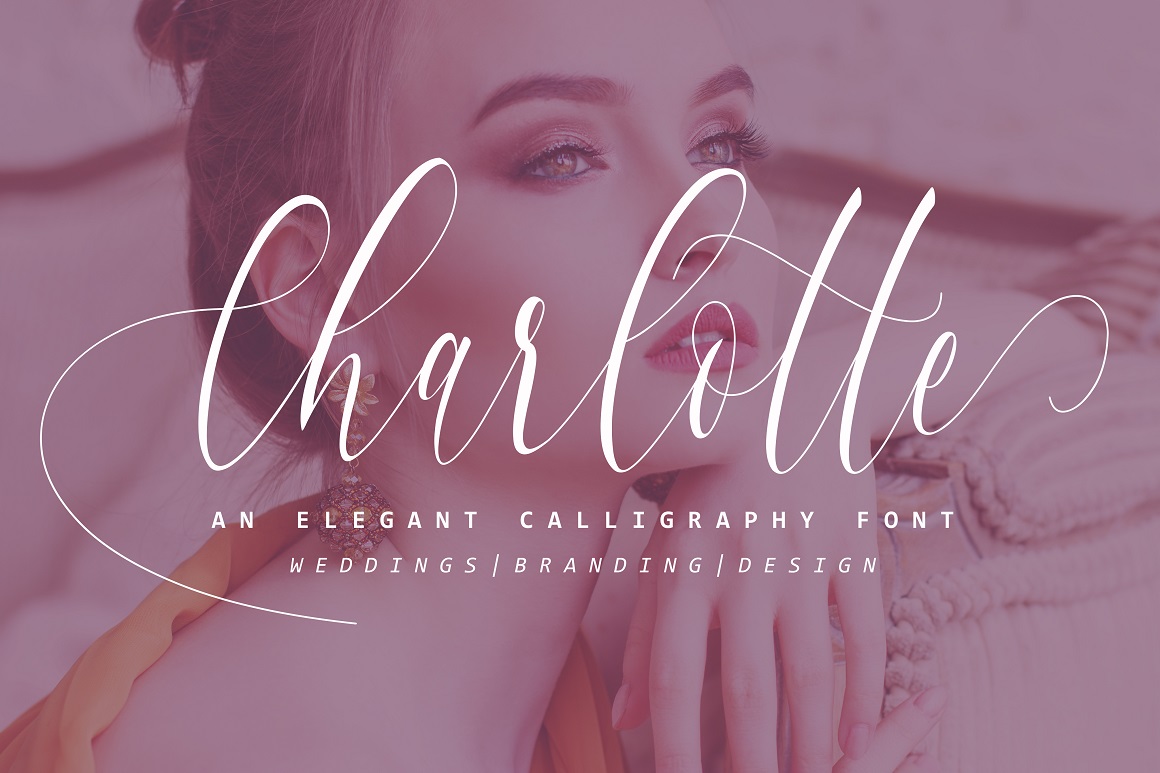
Charlotte Handwriting
Charlotte Script Font
Charlotte Calligraphy, this is elegant font with heart touch and warm desire. For those of you who are need a touch of elegance and modernity for your designs or branding, this font was created for you! No doubt!
I’ve release new font with calligraphy style.